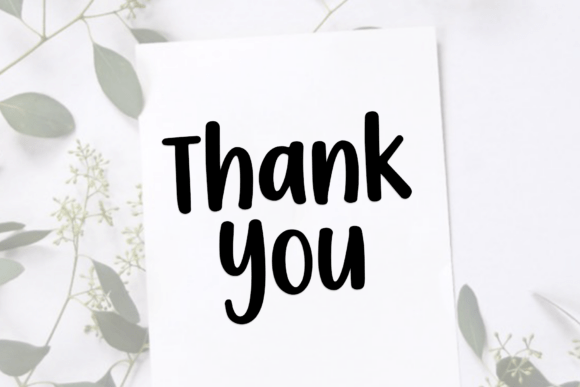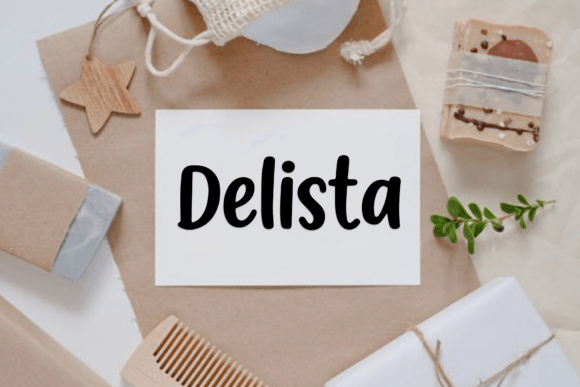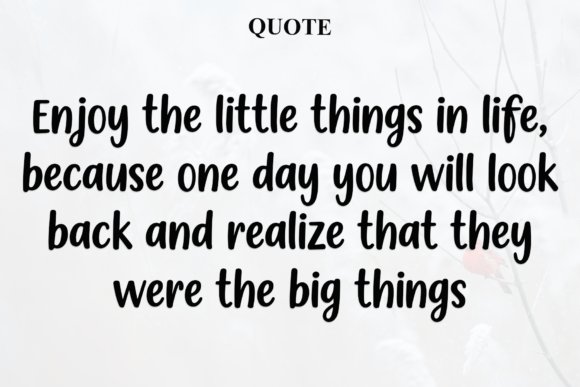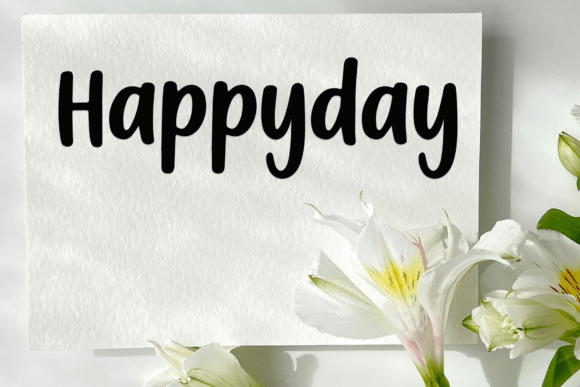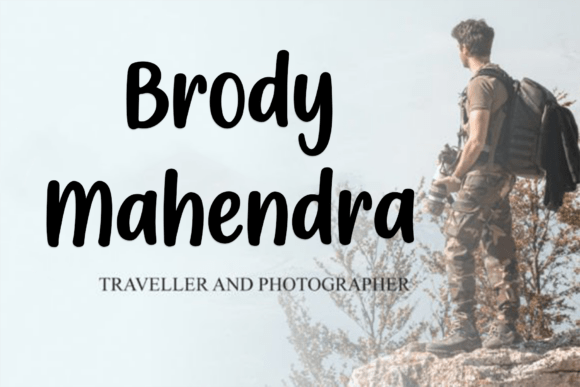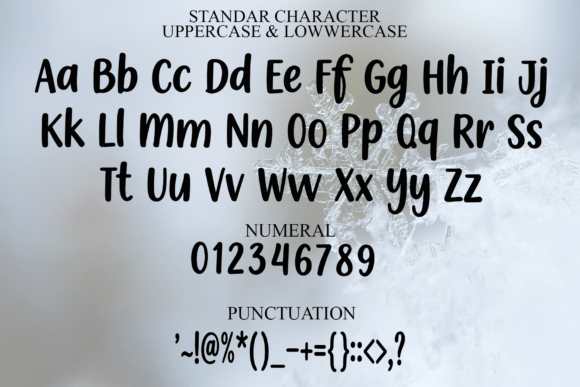
Introduction to Easter Honeymoon Font
Do you remember the thrill of discovering a new design resource that elevates your creative projects? For many designers, finding the perfect font can be a game-changer. Recently, I stumbled upon the Easter Honeymoon Font, and I couldn’t wait to share its charm with you. This delightful font exudes warmth and friendliness, making it perfect for personal projects, invitations, and social media graphics.
With its round, playful strokes, the Easter Honeymoon Font creates a relaxed and approachable feel that’s hard to resist. Whether you’re working on a free download or a high-quality design, this font is sure to add a fun and unique touch. Plus, its transparent background makes it easy to use in various application engines, from Adobe Photoshop to Canva.
As a valuable design resource, the Easter Honeymoon Font is a must-have for any creative project. Its charming, hand-drawn aesthetic is sure to captivate your audience and leave a lasting impression. In this article, we’ll dive deeper into the world of the Easter Honeymoon Font and explore its many uses and benefits.
Key Features of Easter Honeymoon Font
- Unique, hand-drawn design with a whimsical touch, perfect for creative projects and Easter-themed designs.
- Perfect for use in various design projects, including invitations, greeting cards, and other Easter-themed crafts.
- Great design resource for those seeking a unique, high-quality font to elevate their creative projects.
Honest Review: Easter Honeymoon Font
I recently stumbled upon the Easter Honeymoon Font, and I must say, it’s a delightful addition to any design project. This free download offers a unique blend of elegance and playfulness, perfect for creative projects that need a touch of whimsy.
What works well: ✨ The Easter Honeymoon Font features a transparent background, making it incredibly versatile for use on various design elements. The high-quality design is also a major plus, ensuring that your final product looks polished and professional. Additionally, the font’s unique style is perfect for Easter-themed projects, wedding invitations, or any other creative endeavor.
- Unique style perfect for Easter or wedding projects
Limitations: ⚠️ While the Easter Honeymoon Font is an excellent addition to any design resource, it’s essential to note that it may not be suitable for formal or corporate projects. The font’s playful nature may clash with more serious designs, so be sure to use it judiciously.
Overall, I’m thoroughly impressed with the Easter Honeymoon Font. Its unique style, high-quality design, and transparent background make it an excellent choice for creative projects. If you’re looking for a fun and whimsical font to spice up your designs, the Easter Honeymoon Font is an excellent option.
Tips for Getting the Most Out of the Easter Honeymoon Font
To get the most out of the Easter Honeymoon Font, experiment with different font sizes, styles, and combinations to create a unique and eye-catching visual effect. You can also use the font in conjunction with other design elements, such as graphics and images, to add depth and interest to your design.
The Easter Honeymoon Font is perfect for a variety of creative projects, including wedding invitations, birthday party invitations, and other special occasion designs. It’s also great for creating a fun and playful design for a blog or social media post.
Is the Easter Honeymoon Font suitable for digital or print projects?
The Easter Honeymoon Font is a versatile design resource that can be used for both digital and print projects. Its high-quality design and transparent background make it perfect for creating eye-catching graphics, logos, and typography for websites, social media, and print materials. Whether you’re working on a creative project or a commercial design, the Easter Honeymoon Font is an excellent choice.